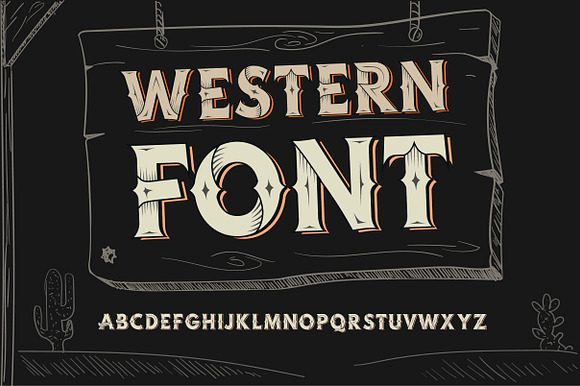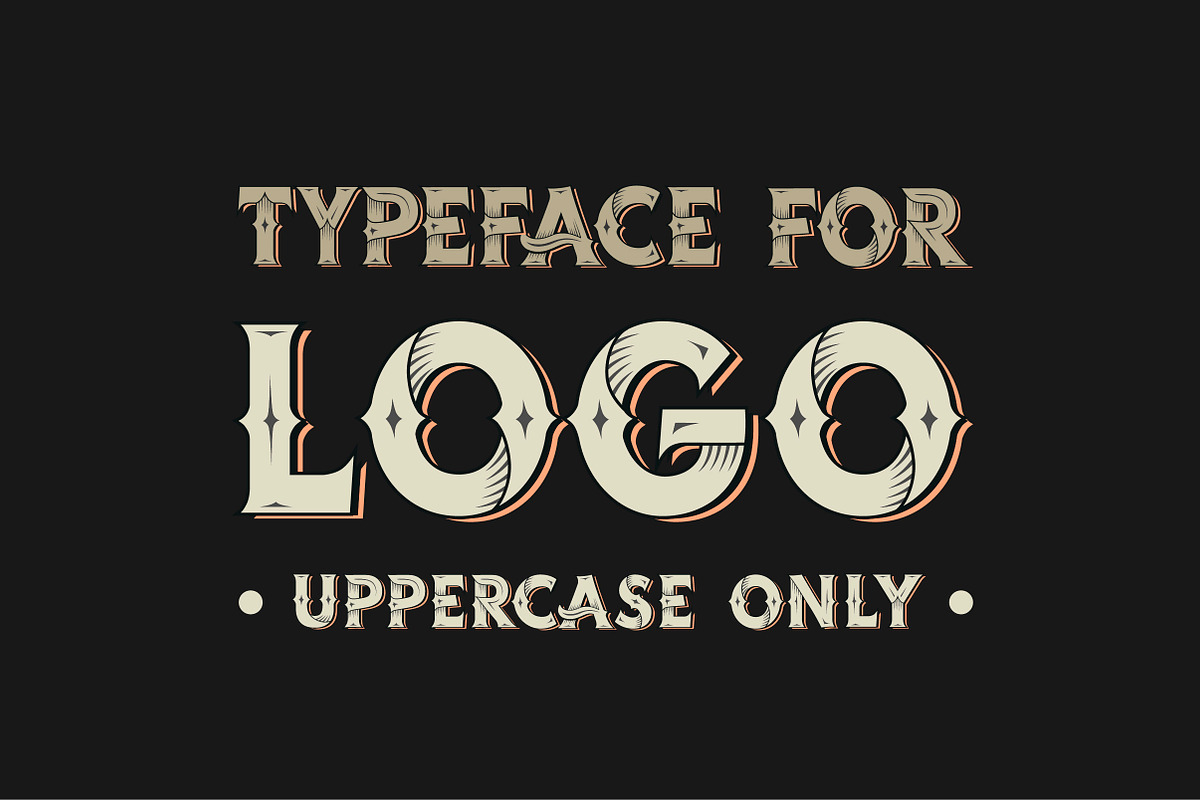
Western vintage font.Uppercase only
Why Western vintage font.Uppercase only is worth a look
Western vintage font.Uppercase only by Fractal fonts & graphics fits naturally into Branding, posters, packaging, typography.